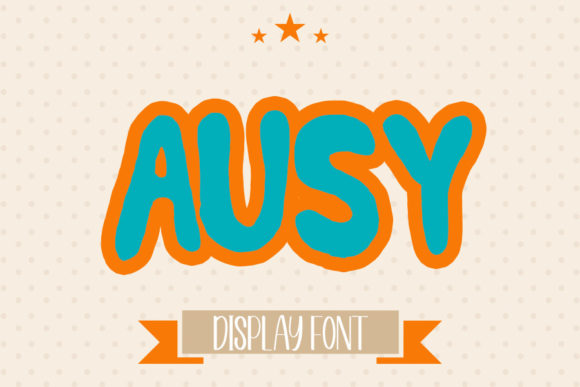
Introducing Ausy Font, a Typographic Masterpiece for Creating Enchanting Designs
Step into the world of captivating typography with Ausy Font. Imagined by the creative minds of inworkID, Ausy is not just a font; it's an artistic expression that adds a touch of magic to your visual creations. Get ready to be mesmerized as Ausy's playful and delightful characters dance across your designs, leaving a trail of elegance in their wake.
Crafted with meticulous attention to detail, Ausy is a display font that exudes charm and personality. Its whimsical strokes and graceful curves evoke a sense of joy and wonder, making it the perfect choice for designs that seek to capture life's sweetest moments. Whether you're crafting wedding invitations, creating playful children's games, or designing enchanting cartoon characters, Ausy will be your trusted companion.
Immerse yourself in the endless creative possibilities that Ausy Font unlocks. Its versatility knows no bounds, making it an ideal choice for a wide range of projects. Let your imagination soar as you explore the endless possibilities of Ausy's typographic magic. From eye-catching logos to heartwarming greeting cards, the power to create captivating designs lies at your fingertips.
Elevate Your Designs with Ausy Font's Enchanting Appeal
With Ausy Font, you'll discover a treasure trove of delightful features that will transform your designs into works of art. Its bold and playful characters exude a captivating charm, drawing the eye and leaving a lasting impression. Whether you're creating digital or print designs, Ausy's crisp and clean lines ensure that your message shines through with crystal clarity.
Unleash the magic of Ausy Font today and watch your designs blossom into enchanting masterpieces. Its timeless beauty and versatility will captivate your audience, leaving them spellbound by the sheer brilliance of your creative vision. Say goodbye to ordinary typography and embrace the extraordinary with Ausy Font. Let your designs dance with joy, and let your imagination run wild as you create visual masterpieces that leave an unforgettable mark.